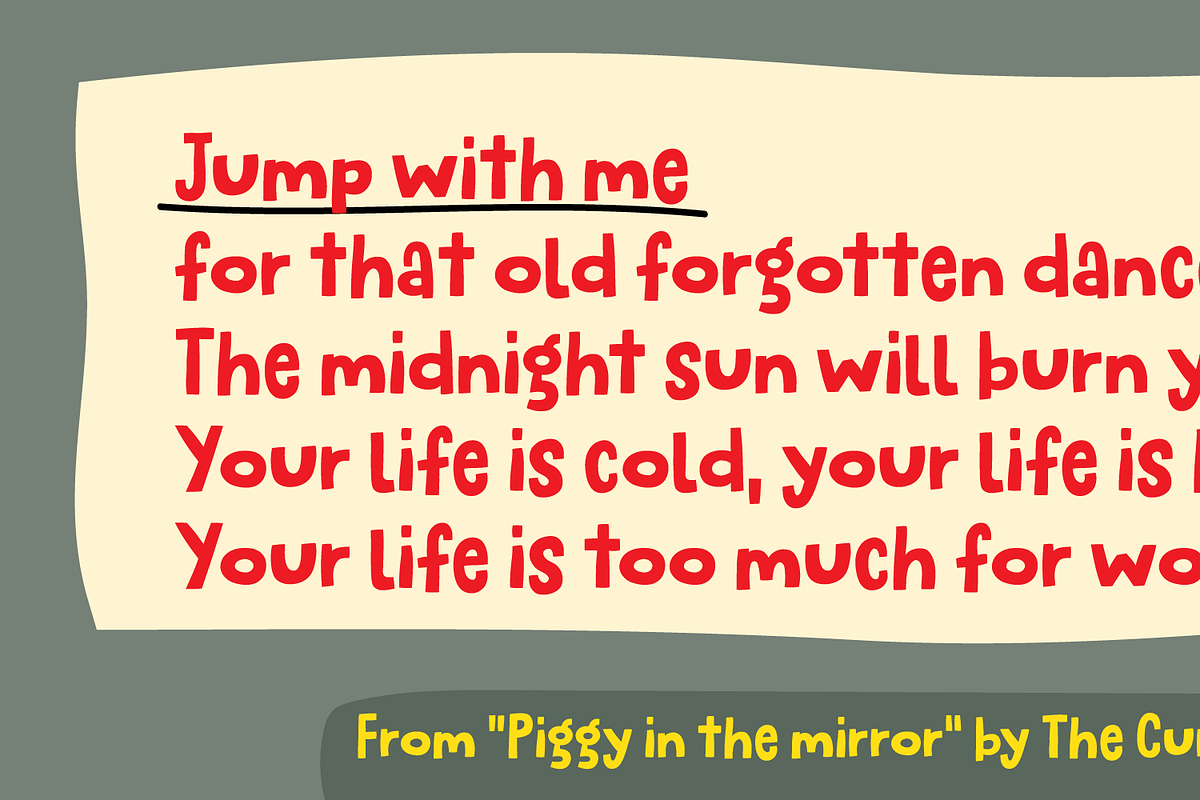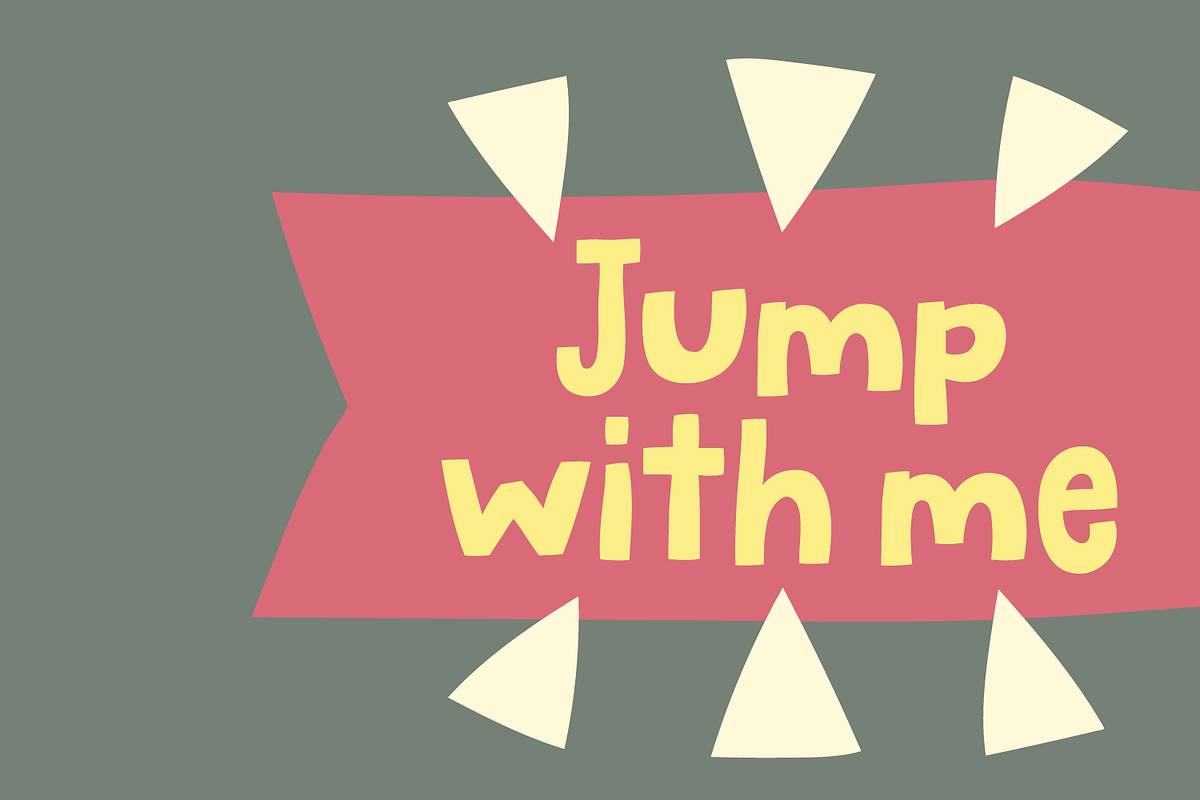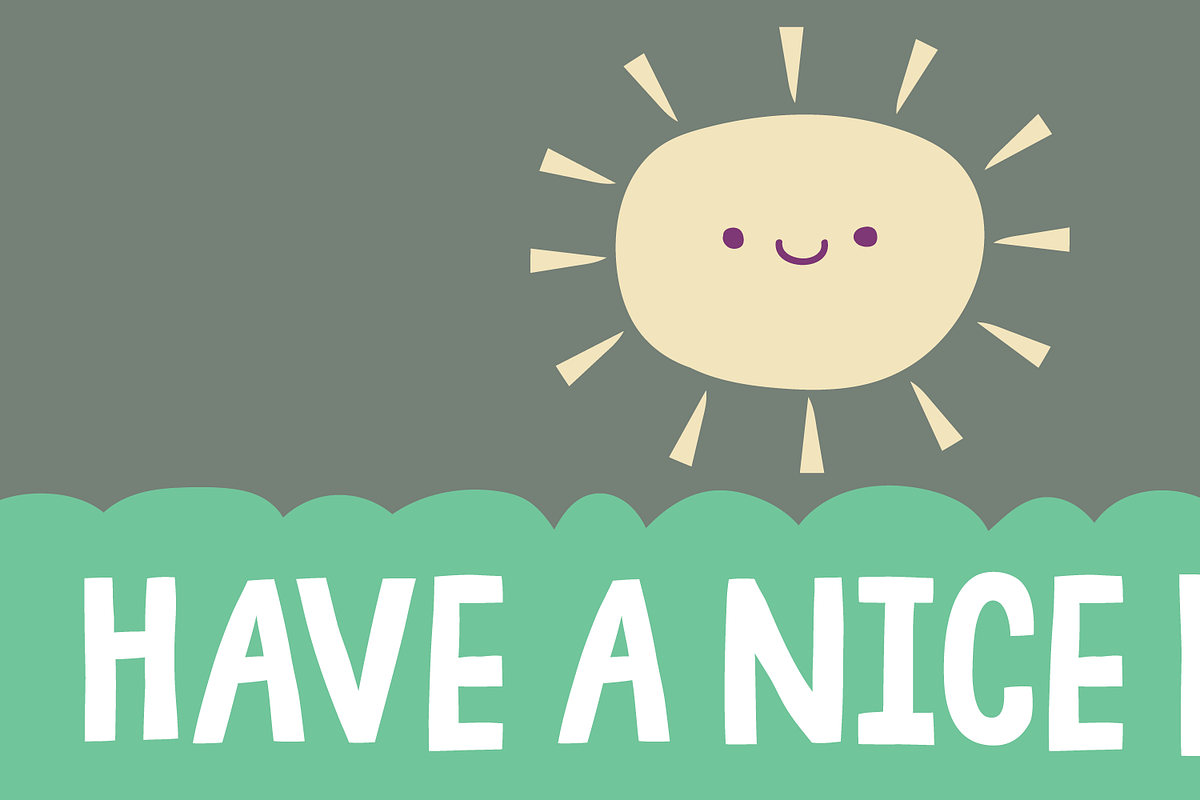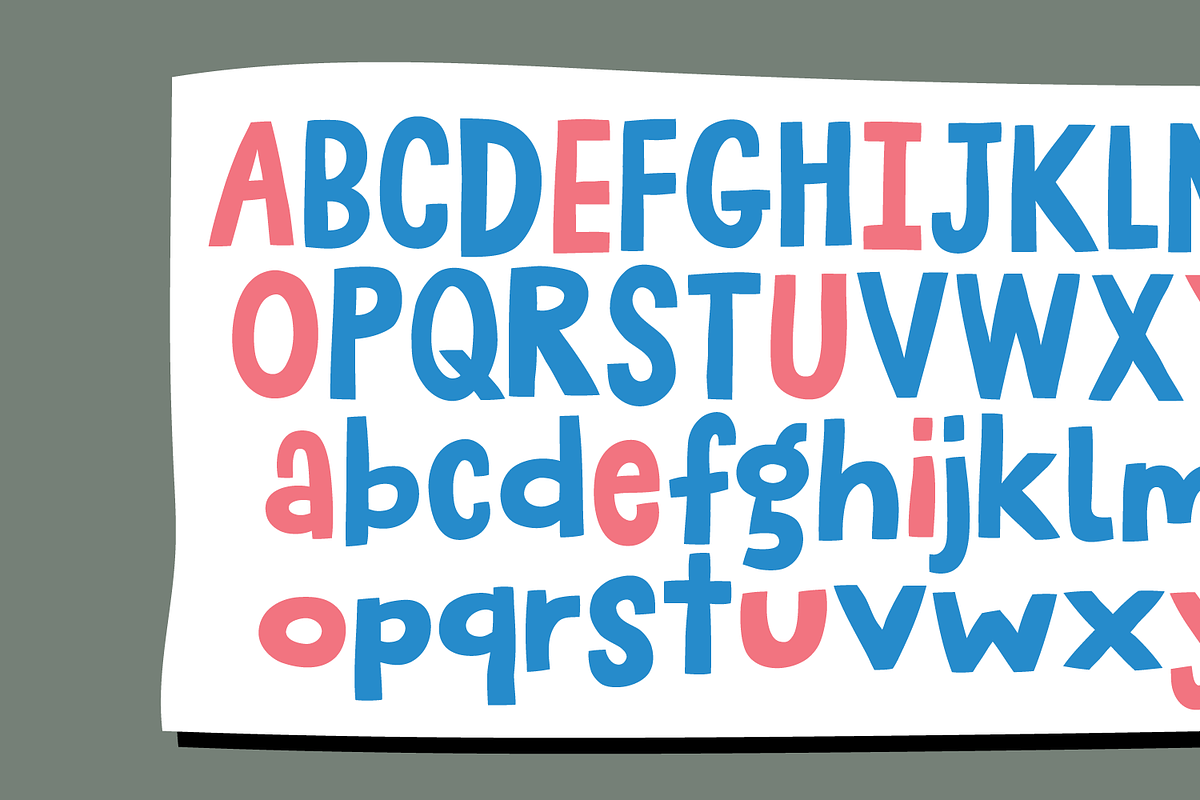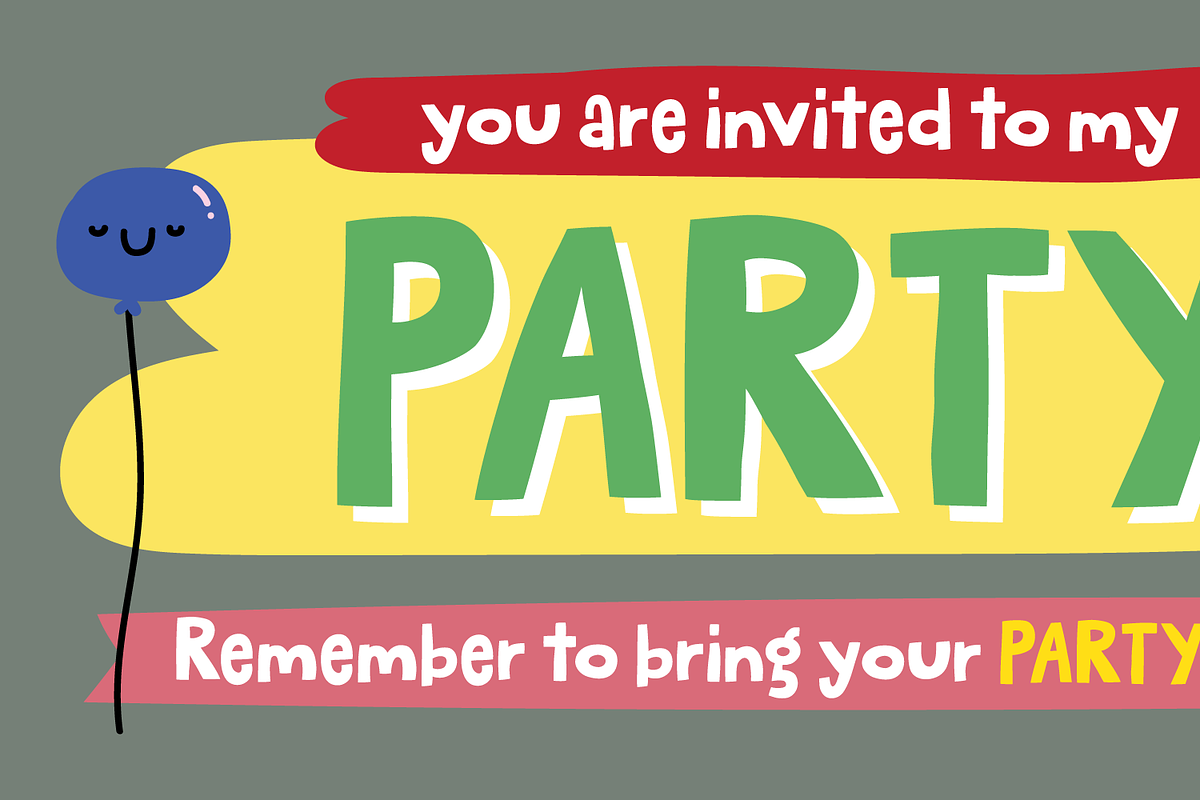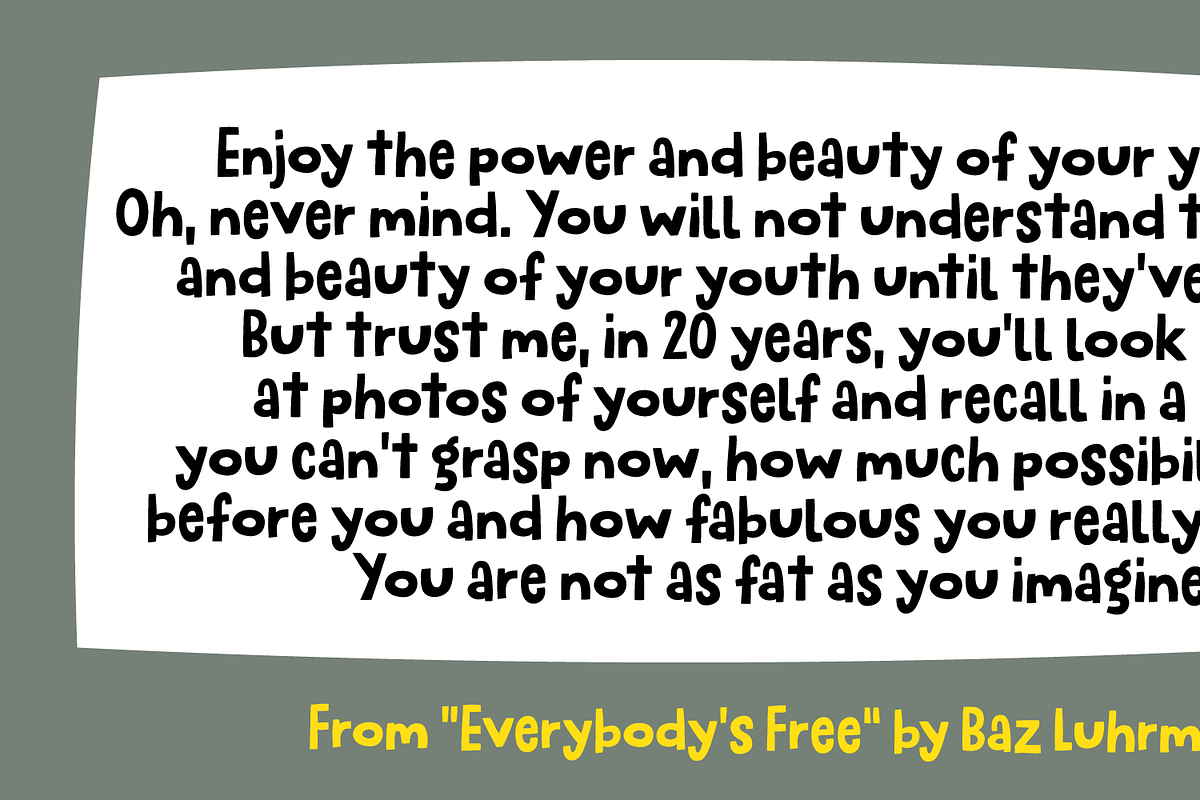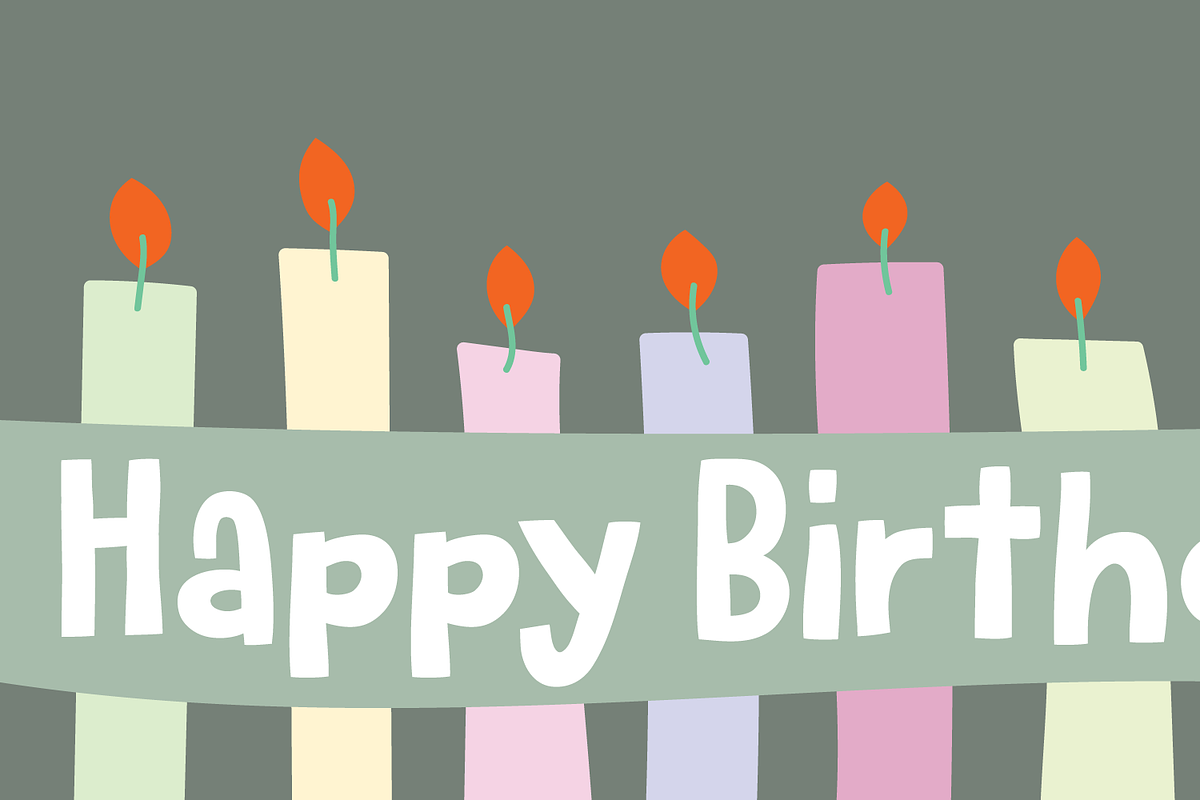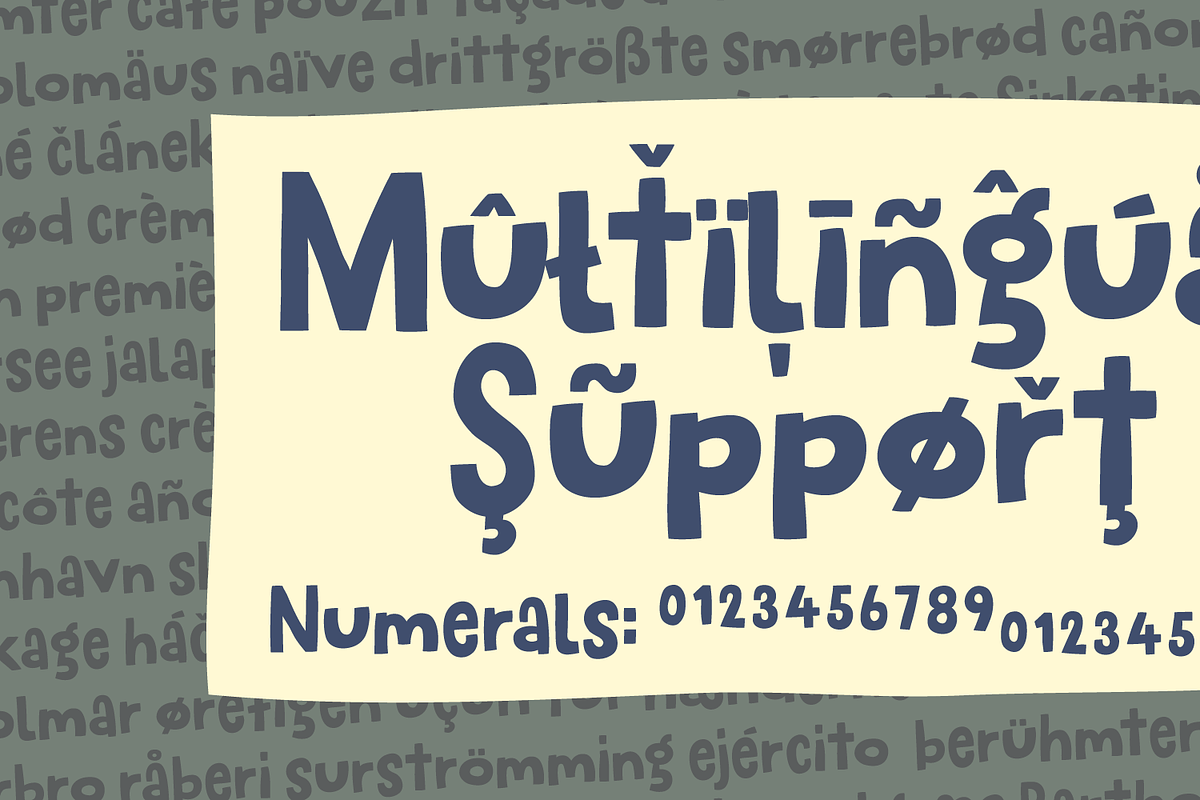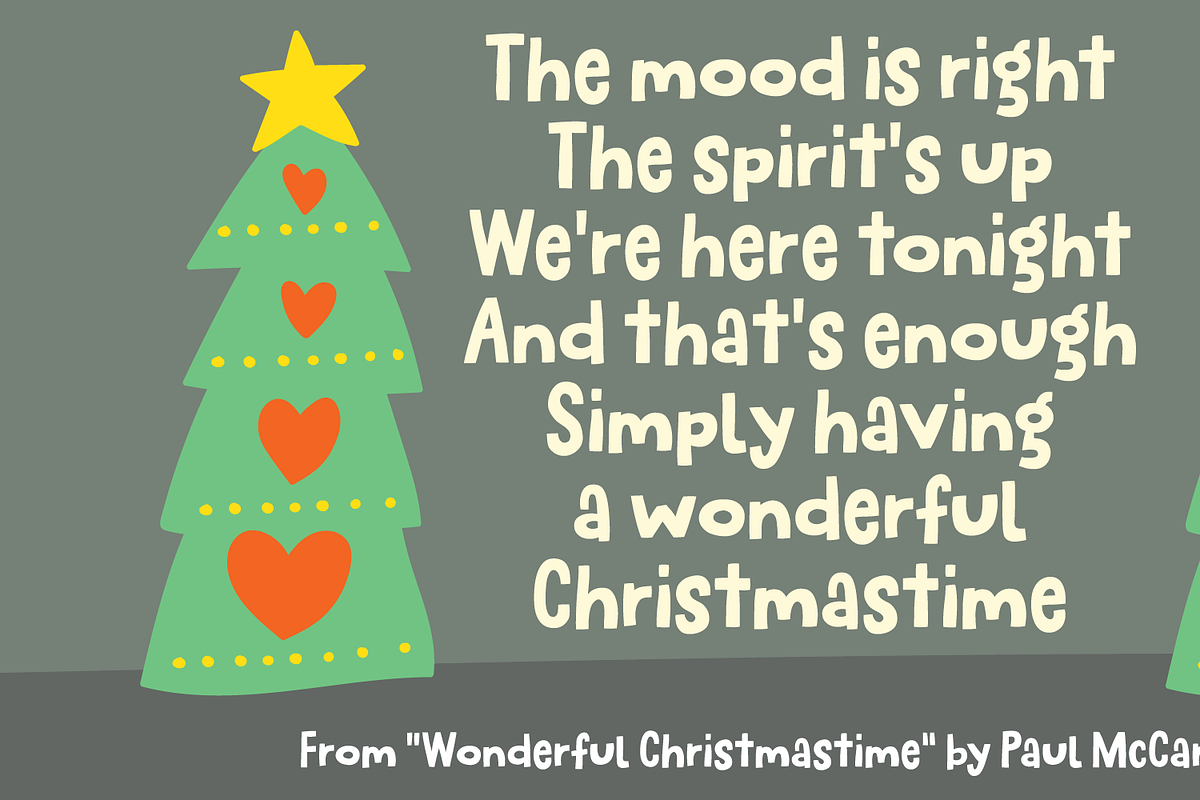
Jump with me!
“Jump with me” is playful and unpredictable, yet super legible. Along with smooth curves and bouncy x-height, all you need to do to start the party is to type your text. And BOOM! Jump with me does the dancework :) Originally created as a sketched handmade font, but I personally cleaned up each and every letter to create this super-deliciously and mouth watering comic font!